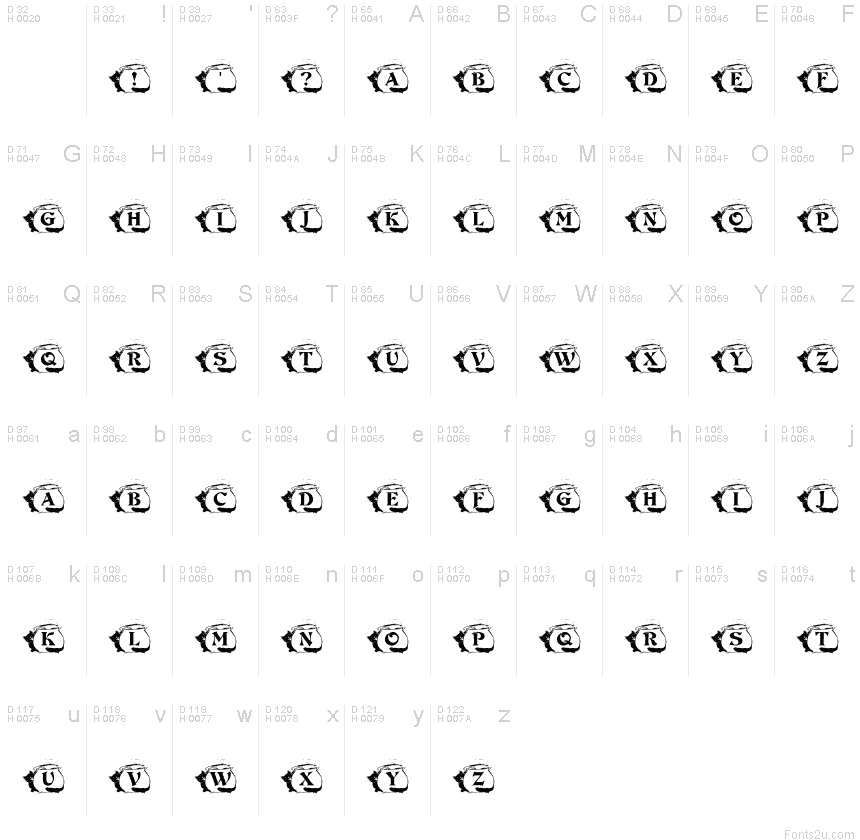
KR Kat's Caulron
KR Kat's Caulron by Katsfunfonts is a free Halloween display font that turns each letter into a little witchy emblem, framed by a bubbling cauldron and backed by a bat-like silhouette. That repeated motif gives the alphabet a cutout, badge-like presence, so the design reads more like a set of themed icons than ordinary decorative lettering.
It makes the most sense where the cauldron shape can do part of the storytelling: party invitations, trick-or-treat flyers, haunted house signs, classroom holiday sheets, and scrapbook titles. Short words and initials especially benefit, since every character arrives as its own spooky label rather than blending into running text.